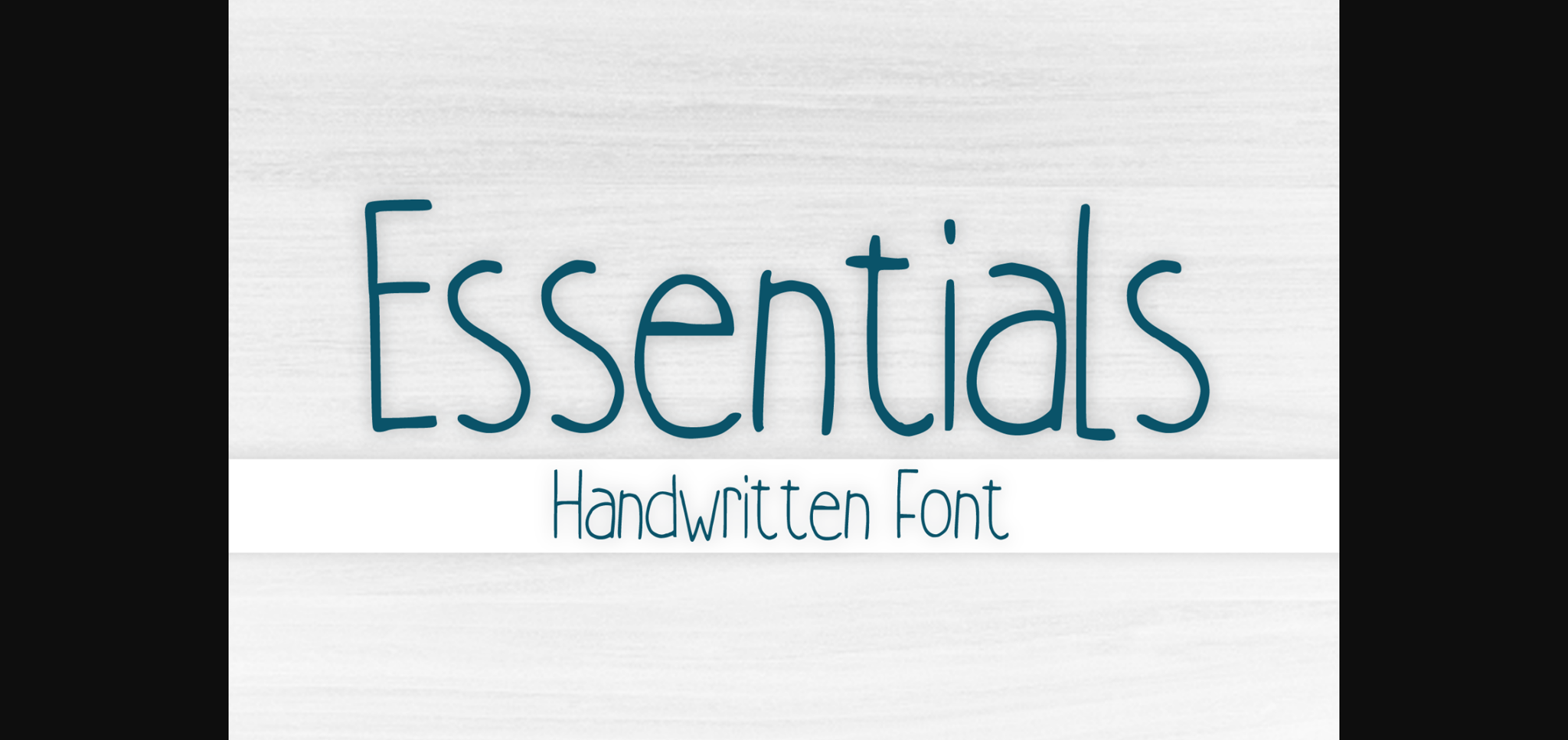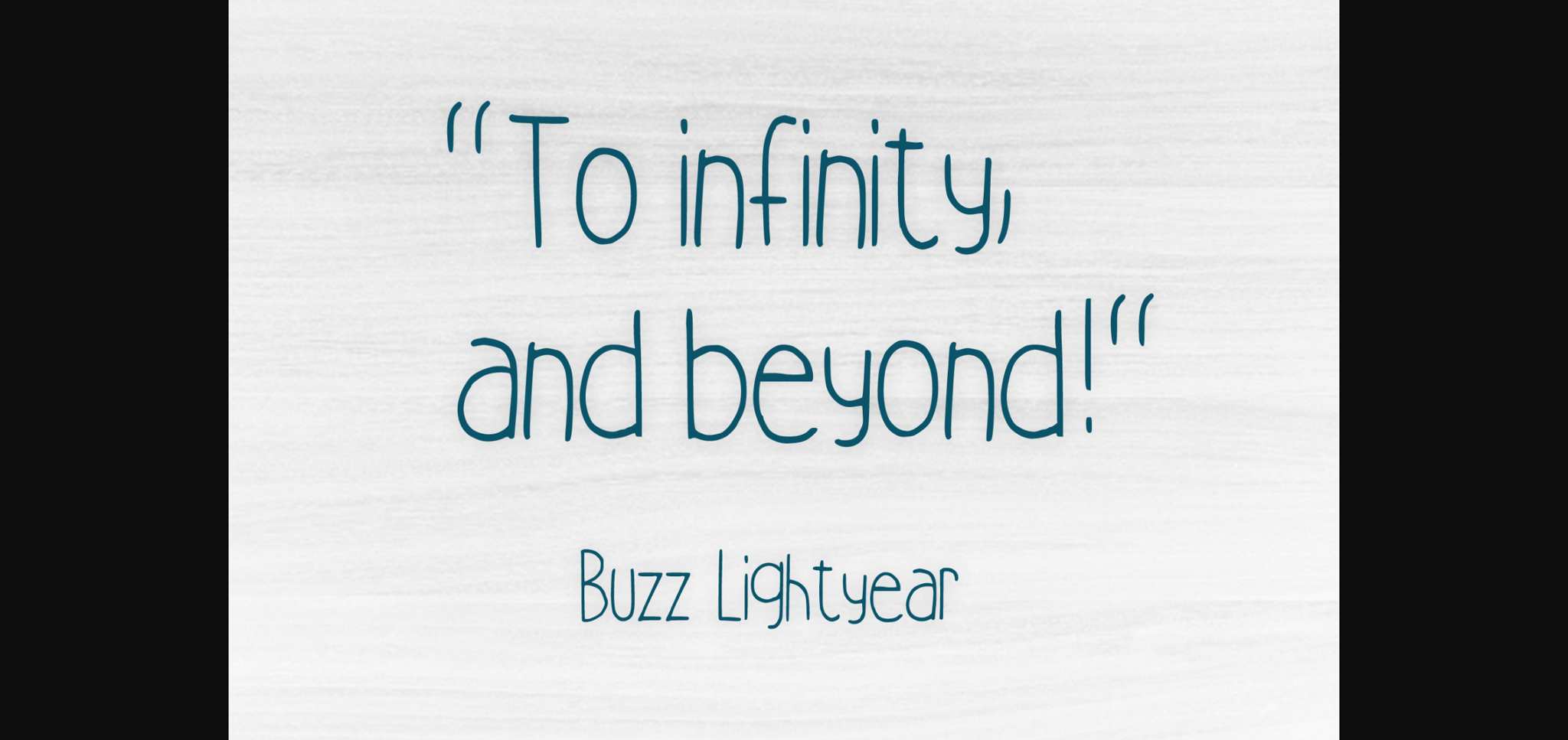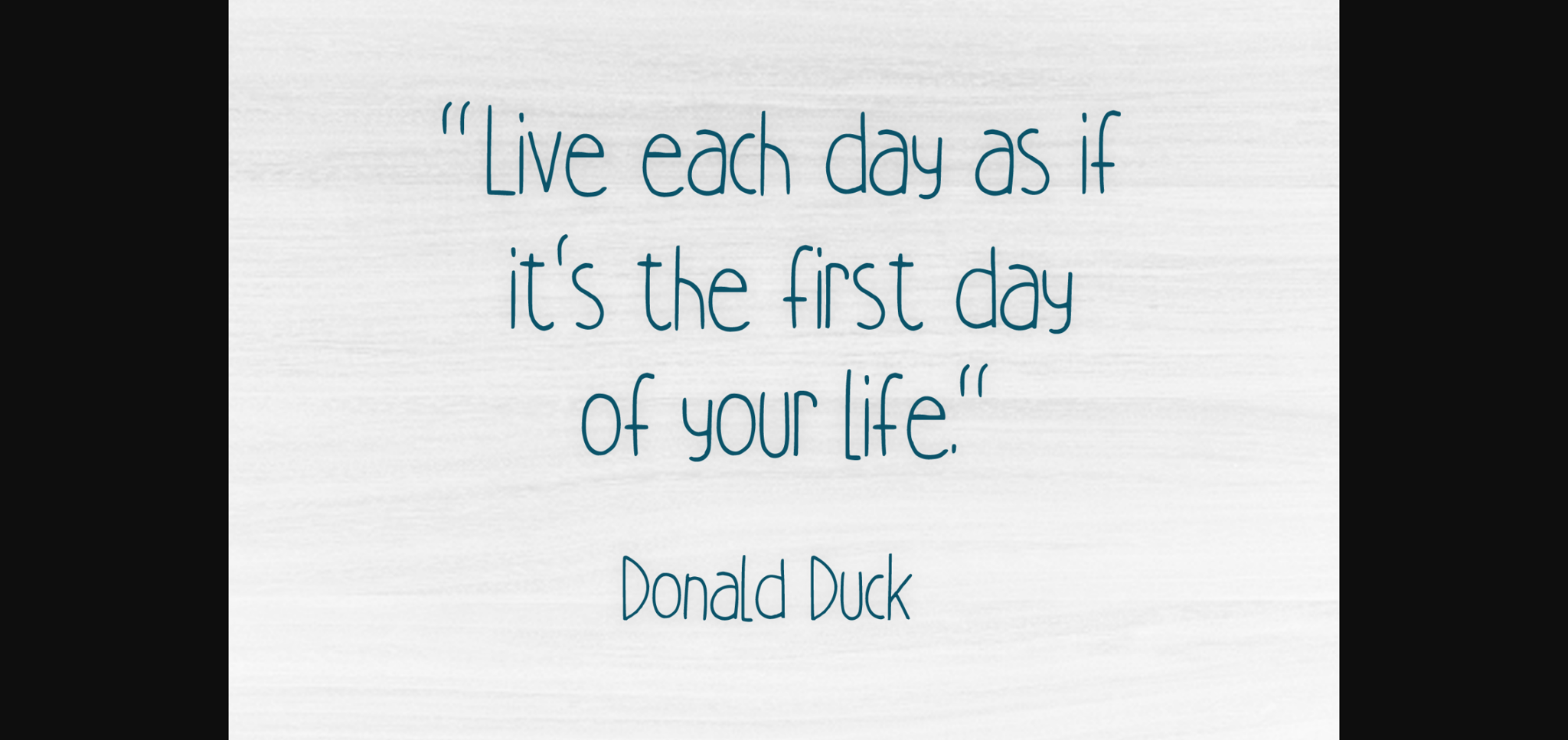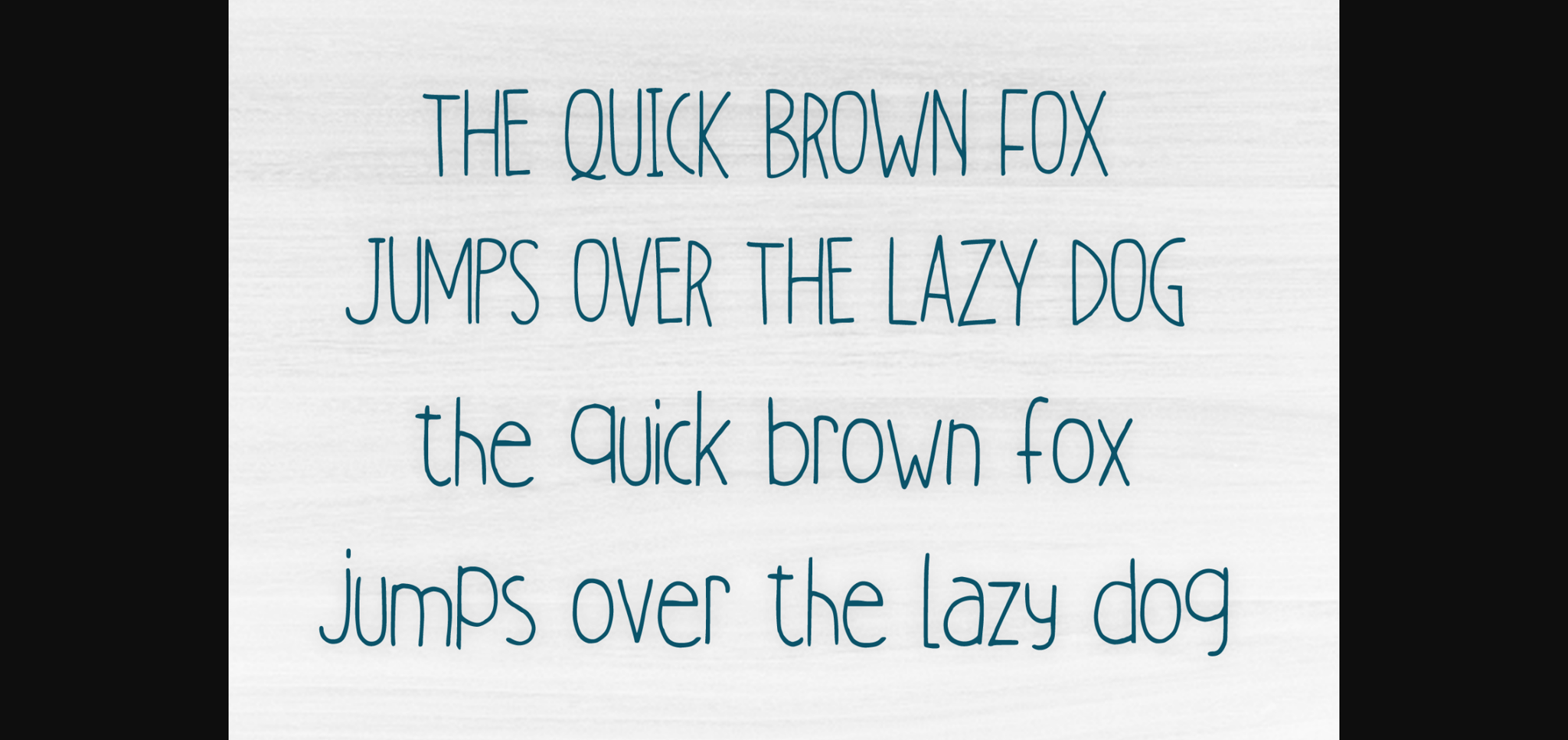
About Essentials Font
Essentials is a minimalist sans serif handwritten font. You can use it for anything ranging from t-shirts, kids’ book designs, and greeting cards to stickers and posters, or anything that needs a casual touch. Fall in love with its incredibly versatile style and use it to create lovely designs!